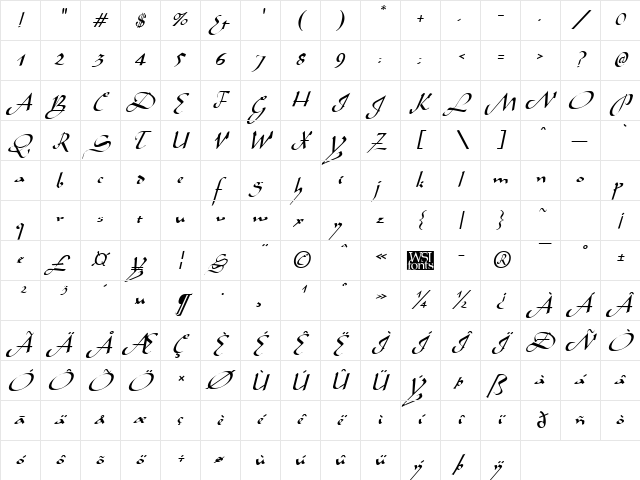
Complete Aladdin Italic glyph index. Displaying only characters natively supported by Aladdin Italic font.
Aladdin is a composed and adaptable typeface that performs quietly and consistently across a wide range of design contexts. The slanted form adds forward momentum and visual energy.